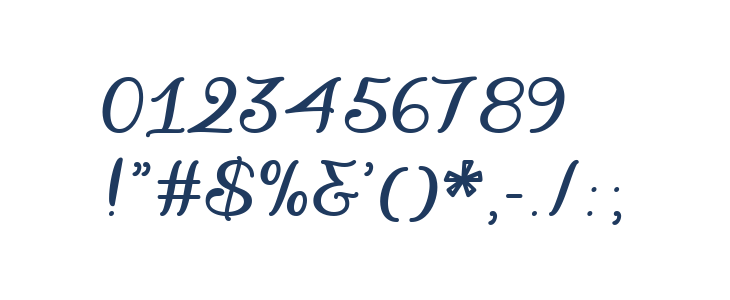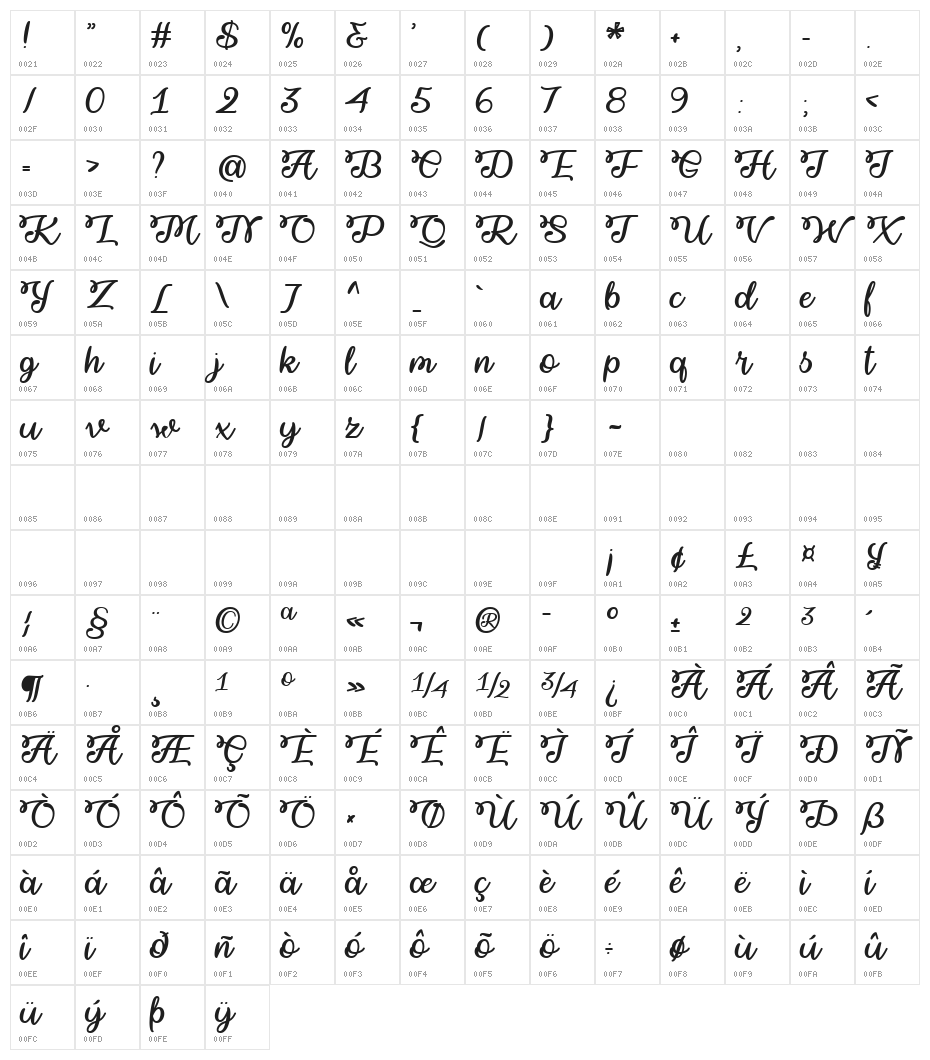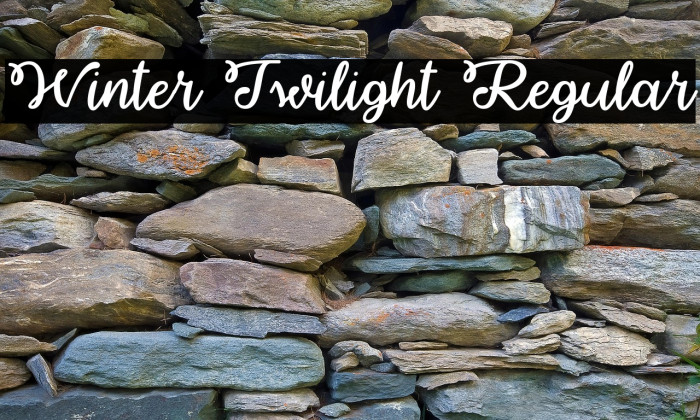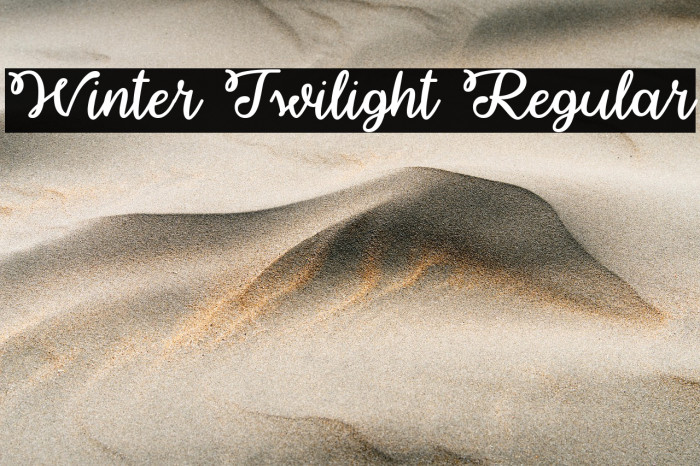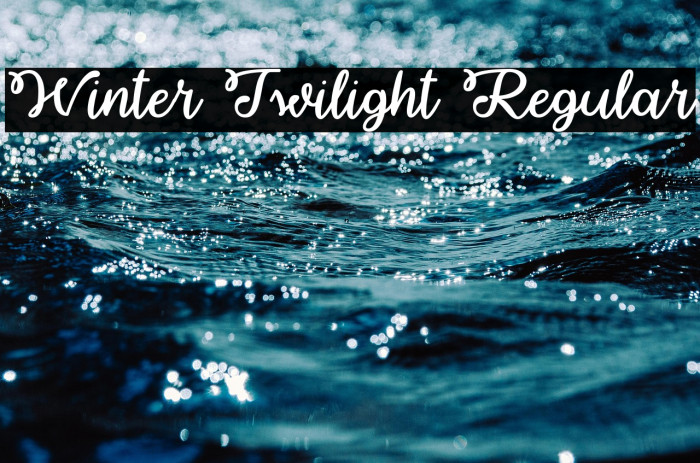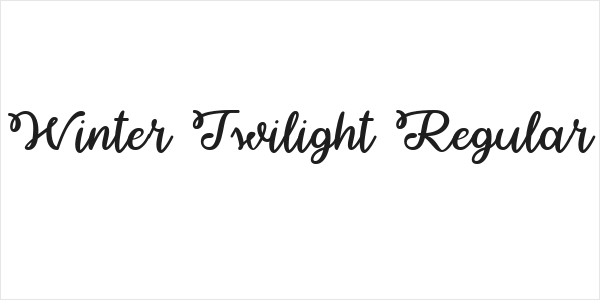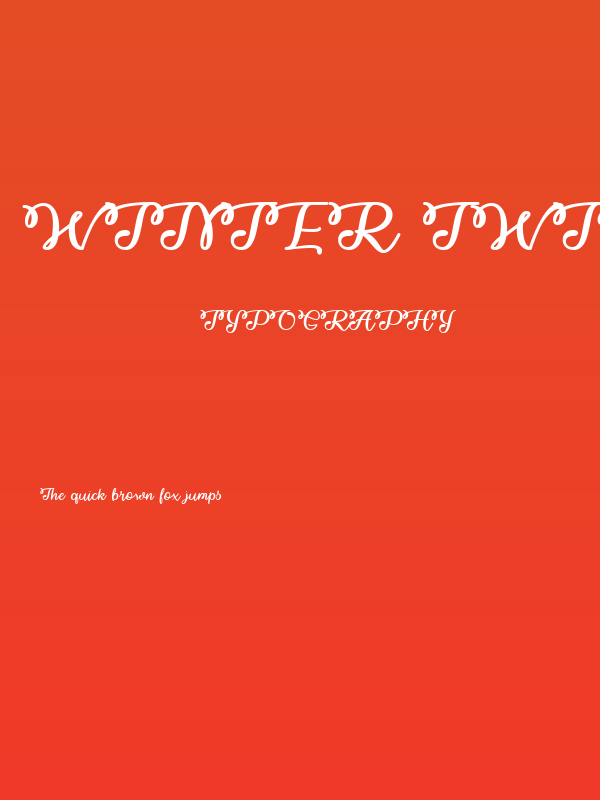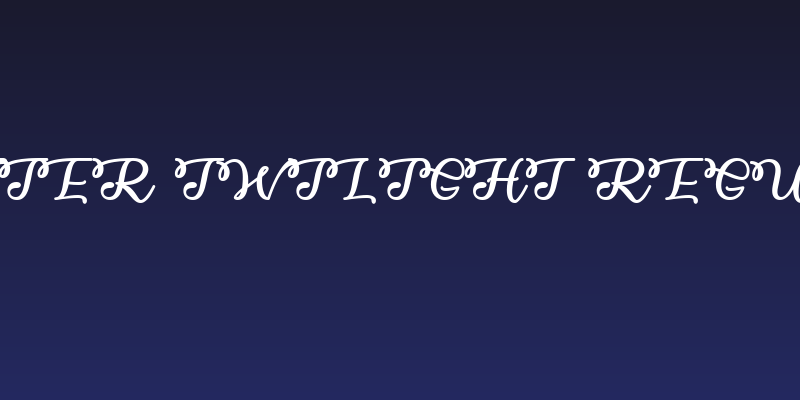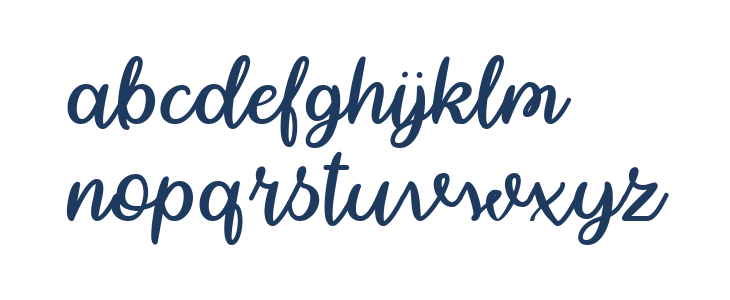
Winter Twilight Regular Font
Winter Twilight Regular Description
This font features a whimsical and elegant script style with a playful touch. The uppercase letters are adorned with small decorative swirls, adding a unique flair to each character. The lowercase letters maintain a smooth and flowing cursive appearance, enhancing readability while retaining a sense of sophistication. The numerals are consistent with the script style, offering a cohesive look across all characters. Special characters are designed with similar embellishments, ensuring uniformity throughout. This font is ideal for projects that require a touch of elegance and creativity.
Use CaseLogos, Invitations, Decorative text
Proposed ProjectsIdeal for wedding invitations, greeting cards, branding, and elegant packaging designs.